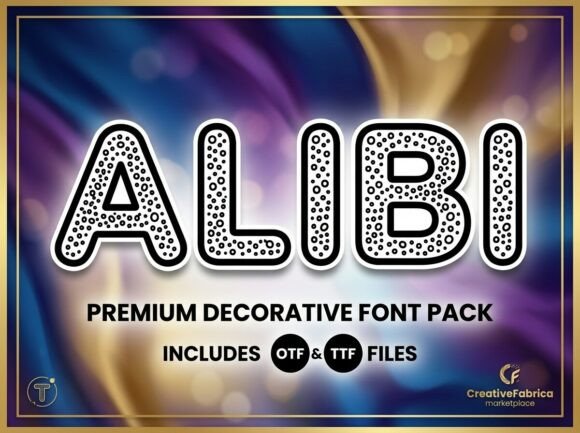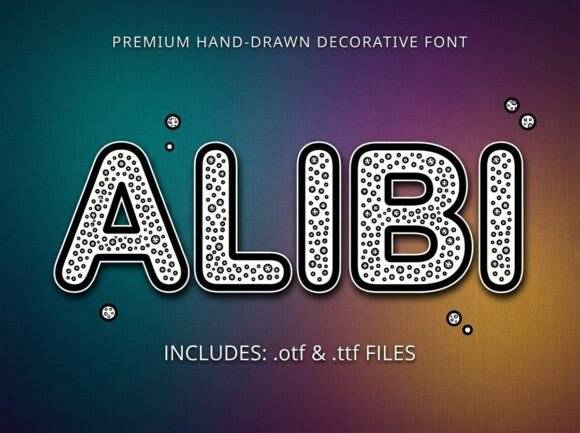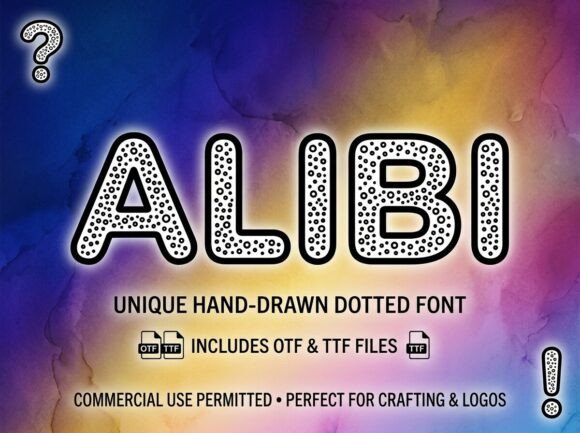
Uncover the Beauty of Detail with Alibi Font
I’ll never forget the design moment that led me to discover Alibi Font. I was working on a branding project for a boutique apothecary, and I was struggling to find the perfect font that captured the delicate yet distinctive soul of the brand. The client wanted something that would stand out on social media, yet still convey a sense of artisanal craftsmanship. That’s when I stumbled upon Alibi, and it was love at first sight! 💕
A Delicate-and-Distinctive Display Typeface
Alibi Font is a mesmerizing display typeface that features bold, rounded letterforms with an intricate internal texture of rhythmic, hand-drawn “stippled” dots. This unique design bridges the gap between artisanal pointillism and modern playful branding. With its heavy structural weight and tactile personality, Alibi is the premier choice for creative projects that require a touch of elegance and whimsy.
What I Love About Alibi Font ✨
- ✅ Unique and eye-catching design that stands out on social media
- ✅ Intricate internal texture adds a tactile and artisanal feel
- ✅ Versatile and can be used for various creative projects, from stationery to blog headers
- ✅ Easy to read, even in large sizes
While Alibi Font is a stunning typeface, there are a few quirks to be aware of:
- 🤔 May not be suitable for body text or long-form content due to its bold and decorative nature
- ⚠️ Limited use of OpenType features, which may limit its use in certain design applications
The story behind Alibi Font is one of creative experimentation and passion. The designer, inspired by the art of pointillism, sought to create a typeface that would capture the delicate and distinctive soul of artisanal craftsmanship. Through hours of hand-drawn stippling, Alibi Font was born – a true masterpiece of modern typography.
| What is Alibi Font best used for? | Alibi Font is best used for creative projects that require a touch of elegance and whimsy, such as boutique branding, social media graphics, and craft stationery. |
| Is Alibi Font suitable for body text? | No, Alibi Font is not suitable for body text due to its bold and decorative nature. It’s best used for headlines, titles, and short-form content. |